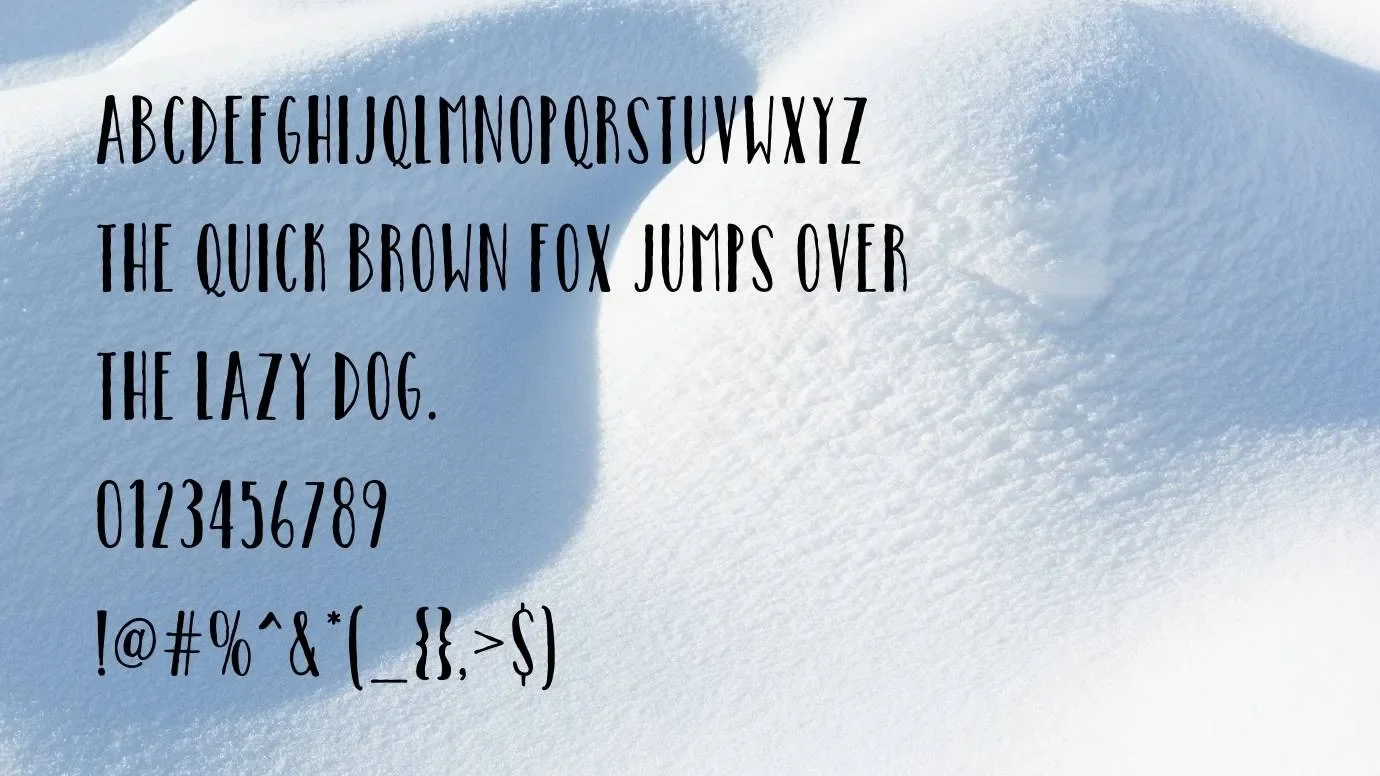
Let’s present a very gorgeous display typeface that is known as Catalina Avalon font designed in 2014 by graphic designer Kimmy Kirkwood. This font family comes with regular, bold, light, and inline weights as well as one inline alternative for both slab serif and sans serif styles. It provides OpenType and TrueType features such as stylistic alternatives for select characters A, K, P, Q, R, Y, contextual alternatives, and lowercases for every letter.
This font family is also famous for its high contrast inline weight that has been extremely used by thousands of designers. However, the light Inline alternative is too similar to Quicksand font that can support more than 70 different international characters. In addition, the design provides a traditional and skinny look for any texture content when used with the combination of Clarendon font.
The designer made it a very unique typeface that provides high-quality glyphs and interesting characters including all case letterings, numerals, punctuation marks, symbols, geometric shapes, mathematical operators, and some special characters. The most similar font to this typeface is Cubebroken font. It is free for personal purposes.
Reason to Use Catalina Avalon Sans Font
It has amazing stylish letterforms that would be a great font for creating thousands of designs. It is also a quite good typeface for huge headlines and titling as well as short or lengthy phrases when used with the combination of Clarendon Font. You can also create interesting names for your buildings, schools, or brands. Creating presentations is another good aspect of this typeface. If you are a student then there is no other better font than this one for creating high-quality assignments and notes.
Due to its clean and impressive textures, you can create interesting designs with the use of this typeface such as:-
- Logo designs
- Website and Blog designs
- Advertisments
- Logos or Poster designs
- Video game development
- Labeling or Menus
- Theme designs
- Certificates
- Branding projects
- T-shirt or Mug designs
- Greeting Cards or Invitations
Catalina Avalon Sans Font Family (Includes Total 8 Typeface)
- Catalina Avalon Sans Regular
- Catalina Avalon Sans Light
- Catalina Avalon Sans Bold
- Catalina Avalon Sans Inline
- Catalina Avalon Sans Slab Light
- Catalina Avalon Sans Slab Regular
- Catalina Avalon Sans Slab Bold
- Catalina Avalon Sans Slab Inline
Where can we use Catalina Avalon Sans font?
It has very smooth and soft letters that would be suitable for creating amazing designs and texture content. It is perfect for headlines, brands, product packaging, printing projects, web designs as well as social media platforms.
Who designed Catalina Avalon Sans font?
This is a high-quality display typeface family designed in the year 2014 by a notable designer Kimmy Kirkwood.